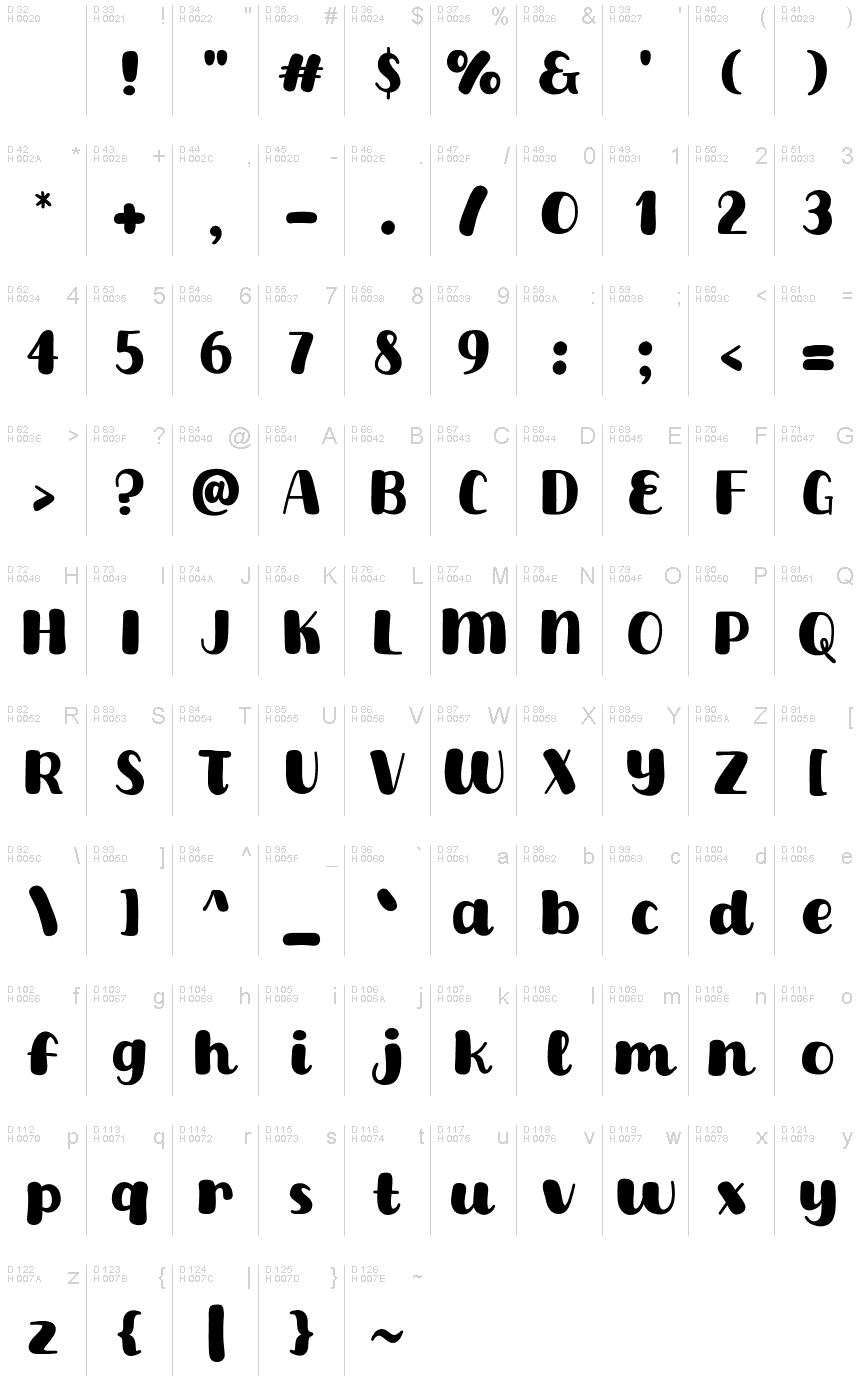
Xmas Show
Xmas Show, a playful masterpiece from the creative mind of Khurasan, stands out as an extra-bold display font with a whimsical cartoon style that immediately captures the imagination. Boasting generous curves and bubbly letterforms, Xmas Show brings a touch of festive cheer to any design. Its robust weight ensures excellent readability at large sizes, making it an ideal choice for eye-catching headlines and festive branding.
The distinctive character shapes of Xmas Show fuse contemporary boldness with lighthearted fun, offering designers a versatile tool for crafting joyful and engaging visuals. Whether you're designing holiday cards, event posters, or playful advertising campaigns, Xmas Show's aesthetic appeal injects warmth and character into your projects. Its suitability spans across digital platforms to print media, ensuring your message is delivered with an infectious smile befitting the happiest season.